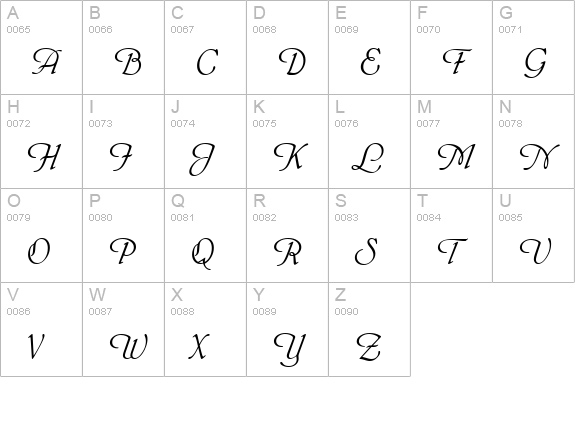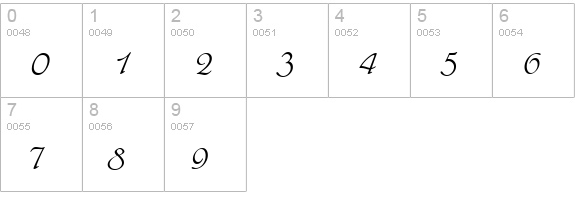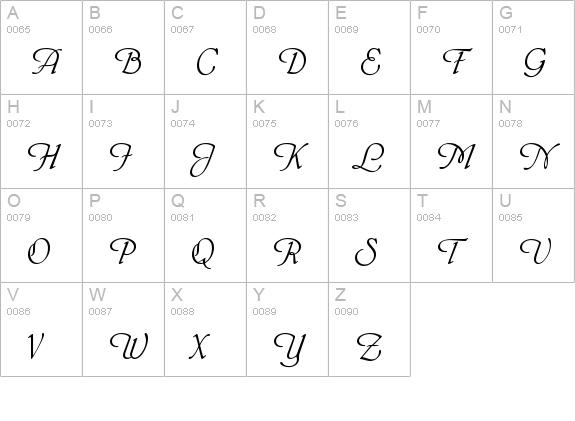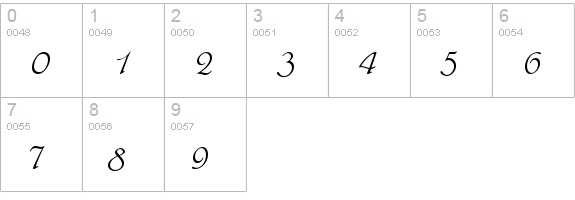
Philadelphia-Regular is the standard, neutral variant in the Philadelphia typeface family \xE2\x80\x94 well suited to general body text, paragraphs, and standard typographic work.
Philadelphia-Regular font is a versatile and stylish typeface designed for a wide range of design projects. With its clean lines and modern aesthetic, this font is perfect for both print and digital applications. The classic yet contemporary look of Philadelphia-Regular makes it a great choice for branding, advertising, packaging, and more. What makes Philadelphia-Regular even more appealing is that it is available for free download at FontsMarket.com. This means you can easily access and use this high-quality font in your projects without any cost. So, whether you're a designer looking for a new font to add to your collection or a business owner in need of a fresh look for your marketing materials, Philadelphia-Regular is a fantastic option that won't break the bank. Download it today and elevate your designs with this elegant and modern font.